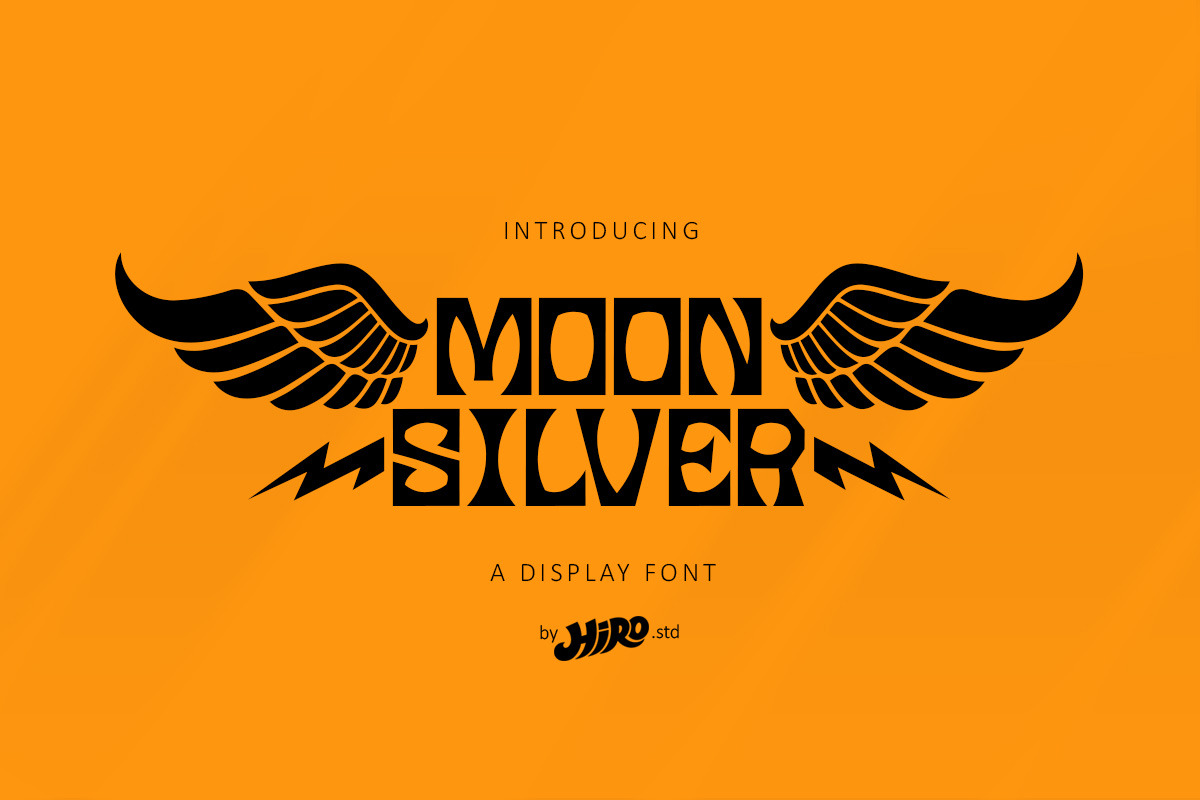
MOONSILVER - Display Font
MOONSILVER is a Display font.
This font describes about taft, funny, square, brave, vintage, retro
USE MOONSILVER works great in any branding, logotype, magazines, poster, social media posts, clothing, advertisements, film title and any projects that need funny, strong, retro and vintage taste.